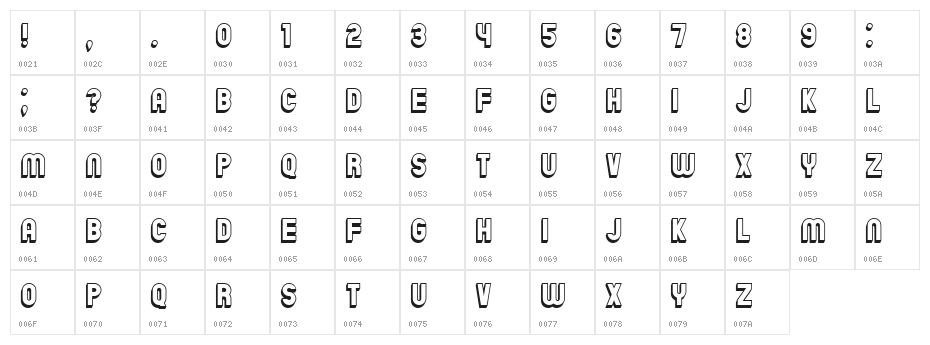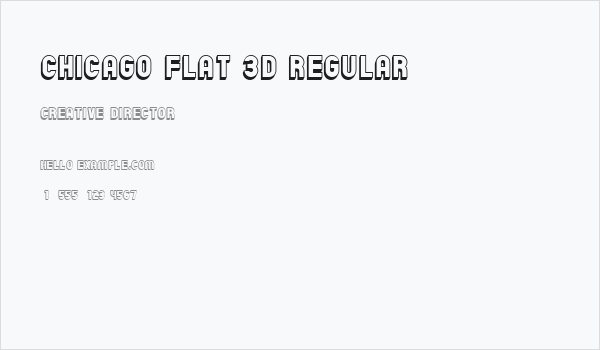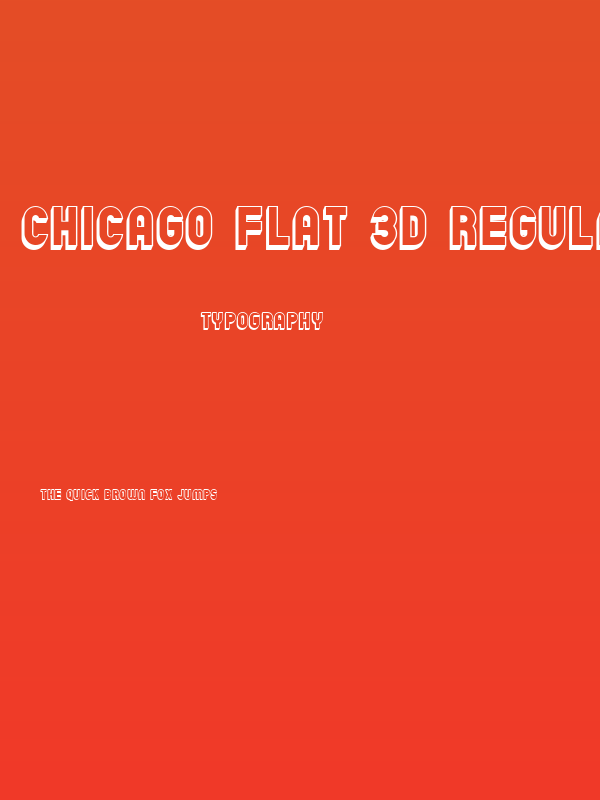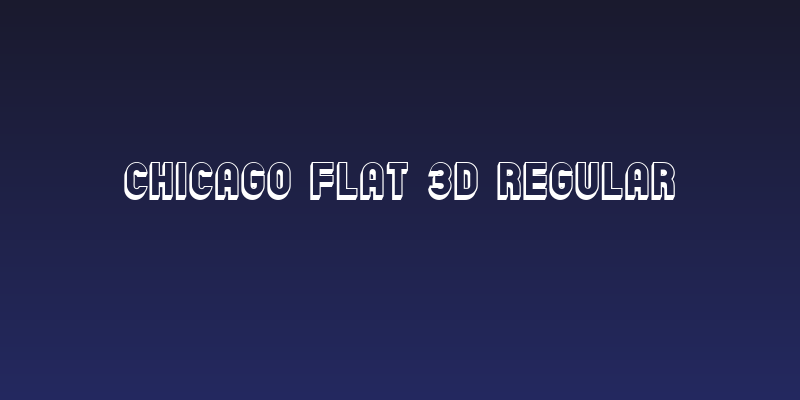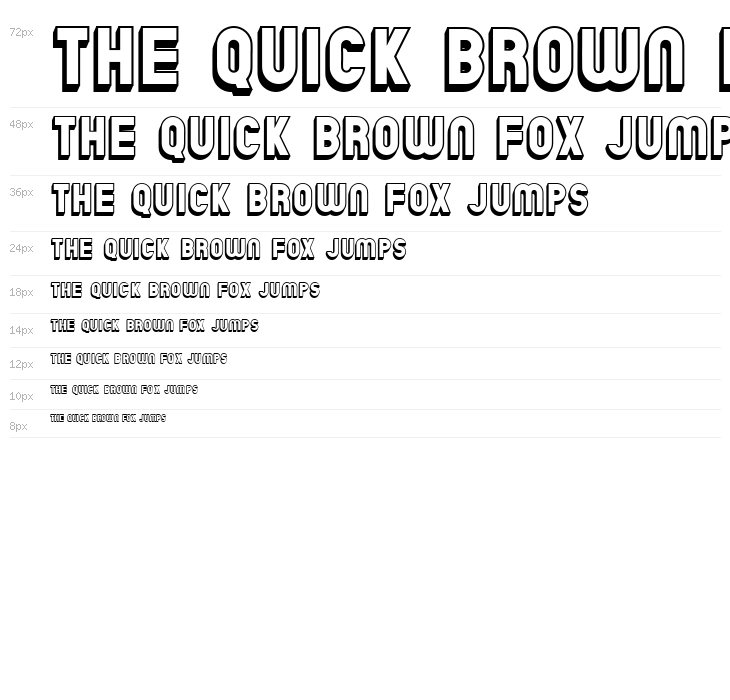
Chicago Flat 3D Regular Font
Chicago Flat 3D Regular Description
This font features a bold, three-dimensional appearance with a flat design that gives a sense of depth and solidity. The characters are outlined, creating a shadow effect that enhances the 3D illusion. The uppercase letters are prominent and well-defined, making them ideal for attention-grabbing headlines. The numbers and punctuation marks follow the same style, ensuring consistency across different types of content. The overall look is modern and playful, suitable for projects that require a strong visual impact.
| Proposed Projects | Ideal for posters, logos, video game graphics, and any design needing a bold, eye-catching typeface. |